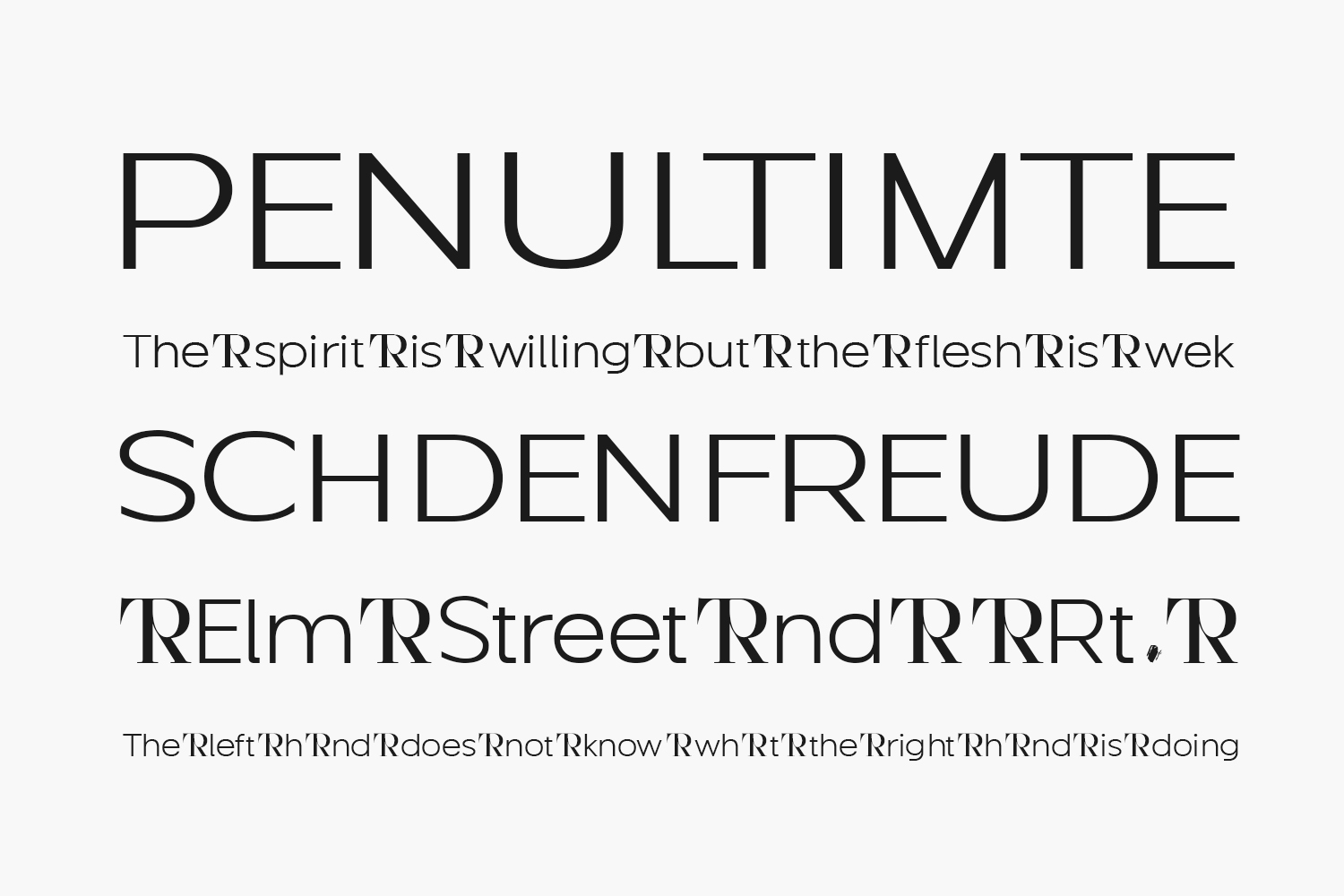
Guminert Free Font has many alternatives, ligatures from uppercase – to lowercase letters, and other supporting character symbols that can be changed as desired. This font is best for use in small and large projects such as Custom Logotypes, Project Branding, Packaging Design, Advertising, project printing, Youtube Thumbnails, T-shirt design printing, and many more which are suitable for other places to use this font. Guminert Free Font was designed by Prevost Lebeuf is a demo and free for personal use only. Please purchase the full version for commercial use.